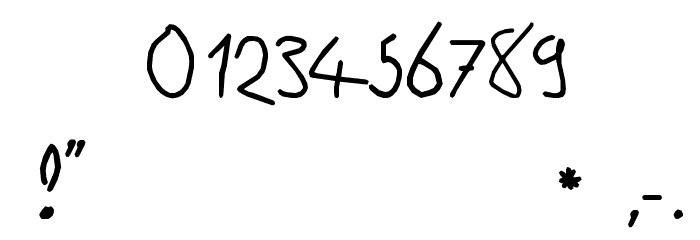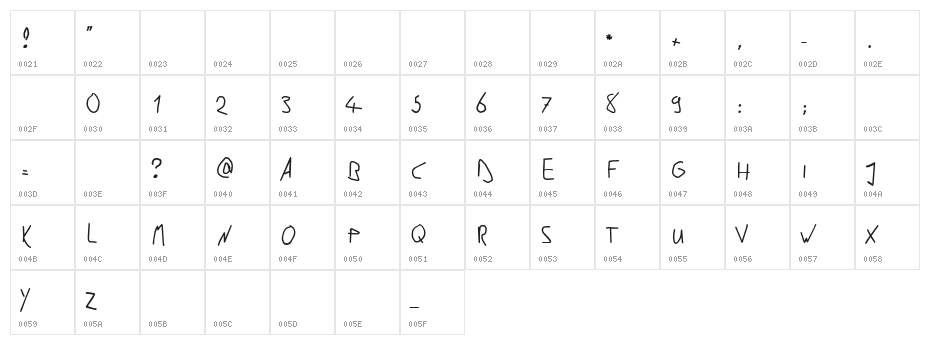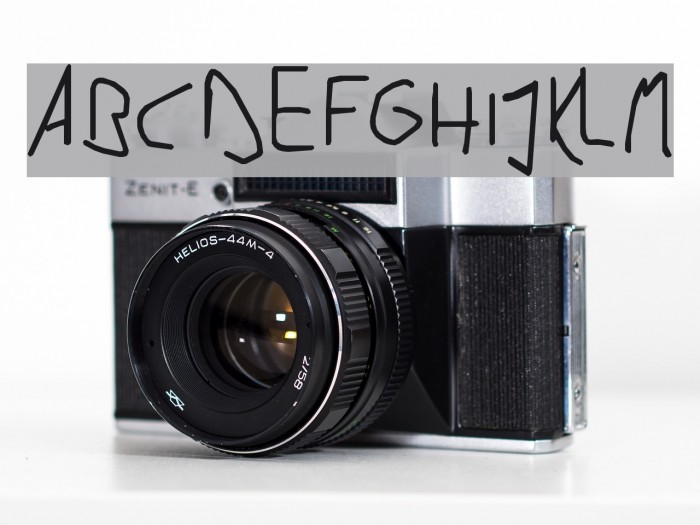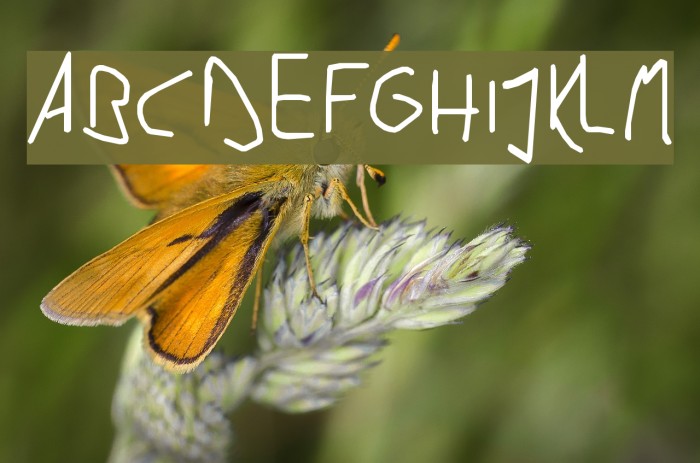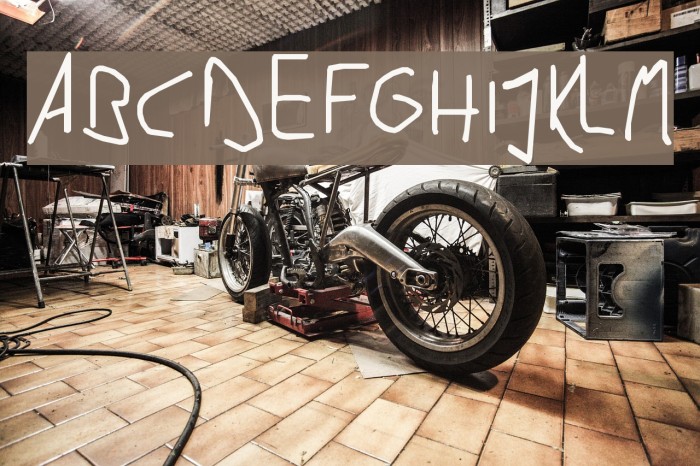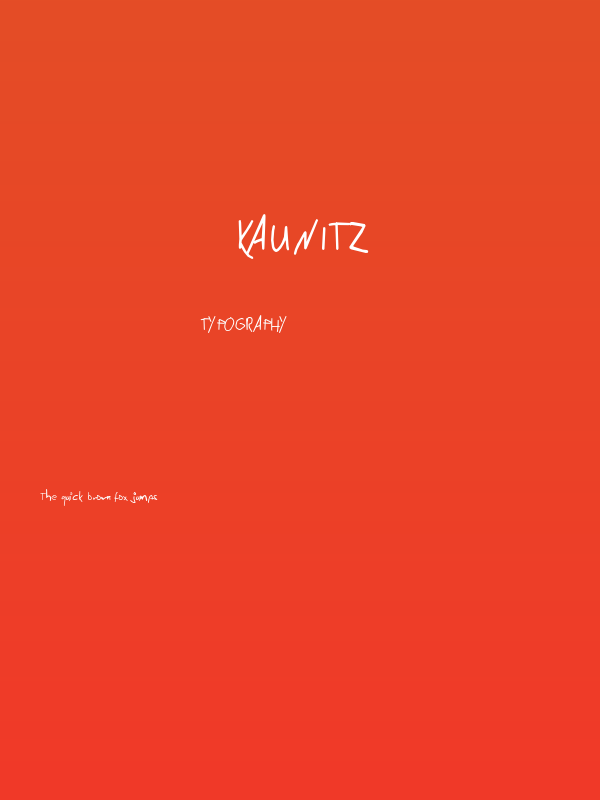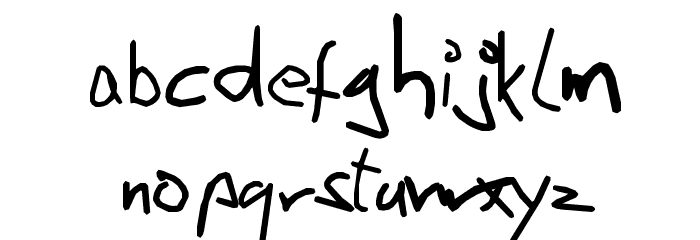
Kaunitz Font
Kaunitz Description
This font exhibits a playful and informal handwritten style, characterized by its uneven strokes and casual appearance. The uppercase letters are slightly angular, giving them a unique and quirky look, while the lowercase letters maintain a consistent flow with a touch of whimsy. The numbers are distinct and easily readable, maintaining the same playful aesthetic. Special characters are creatively designed, adding to the font's overall charm. This font is perfect for projects that require a personal and approachable feel, such as greeting cards, children's books, or creative branding.